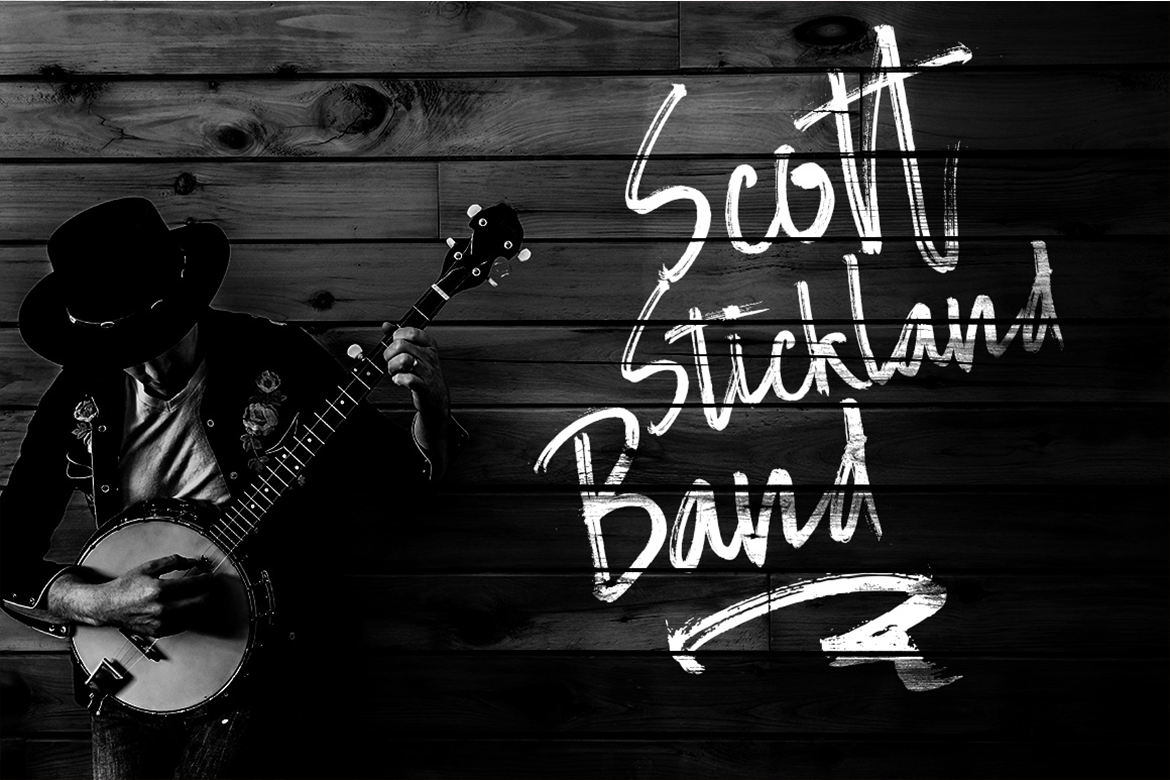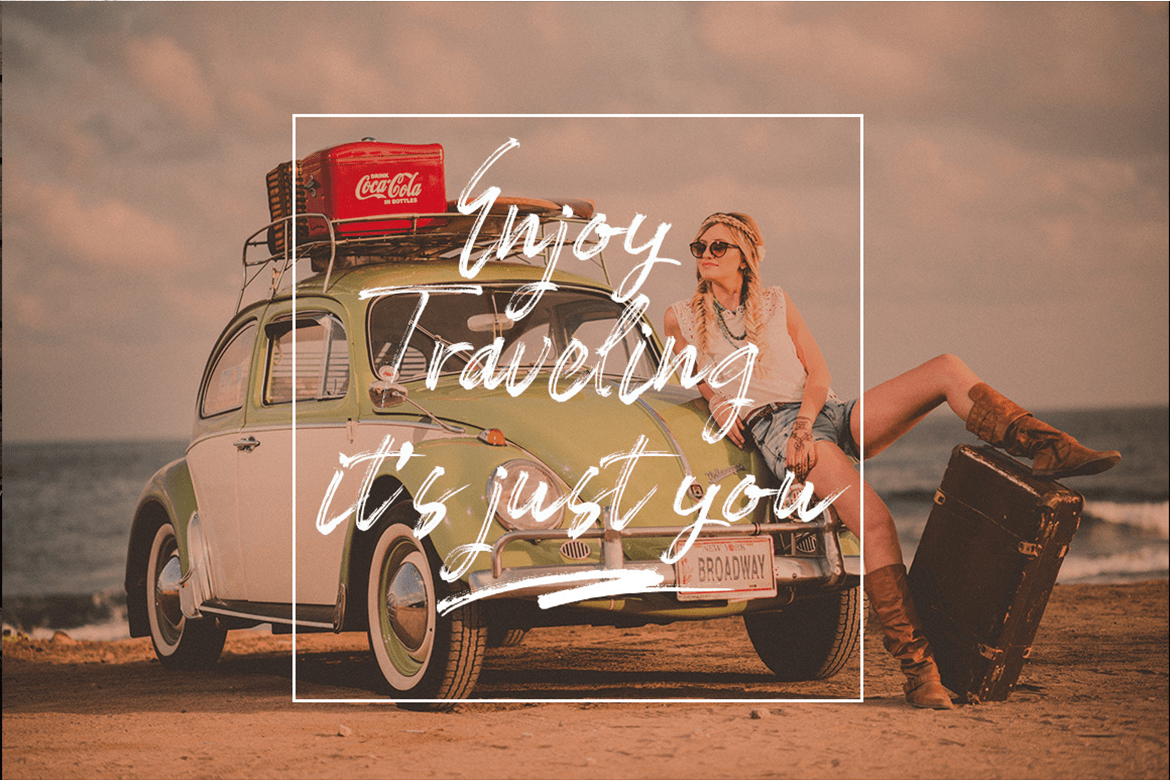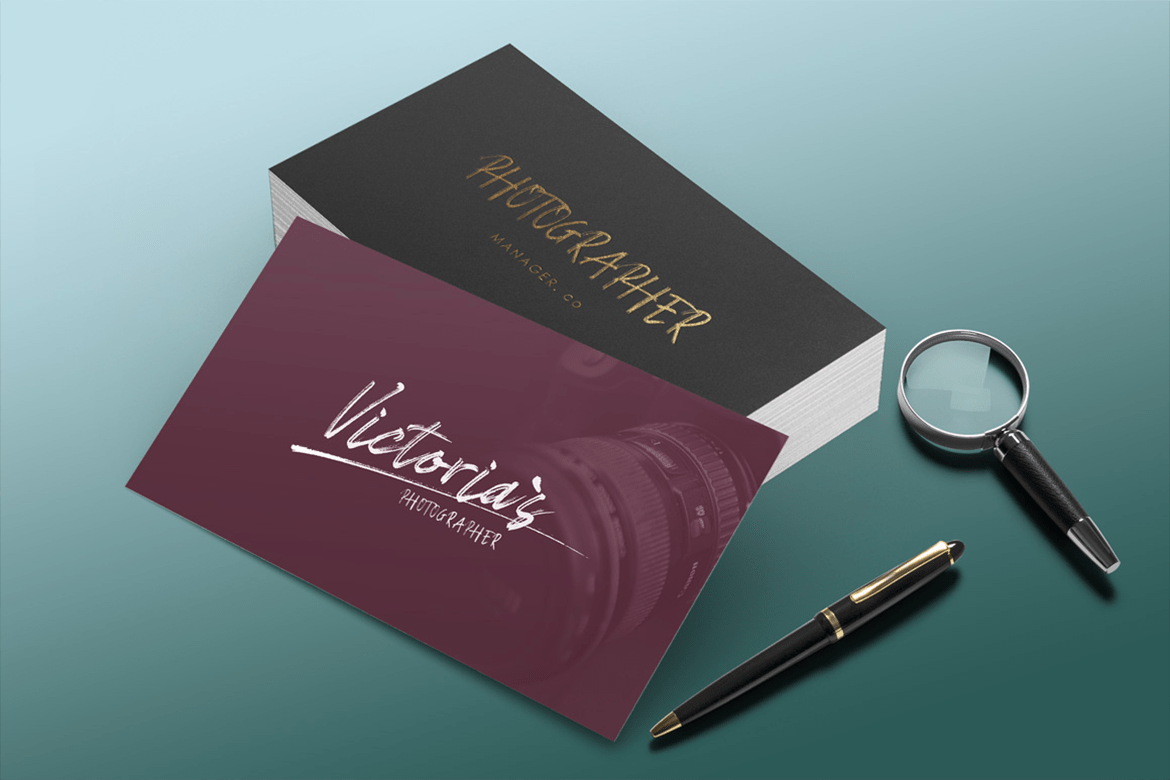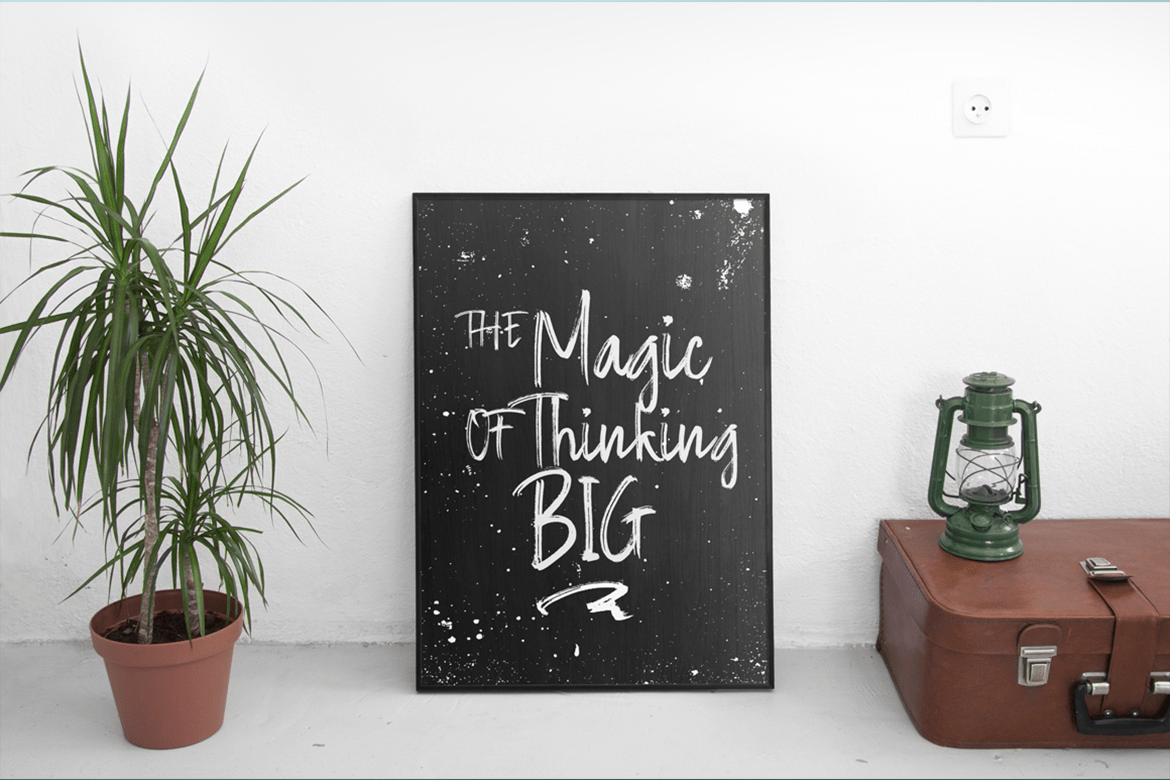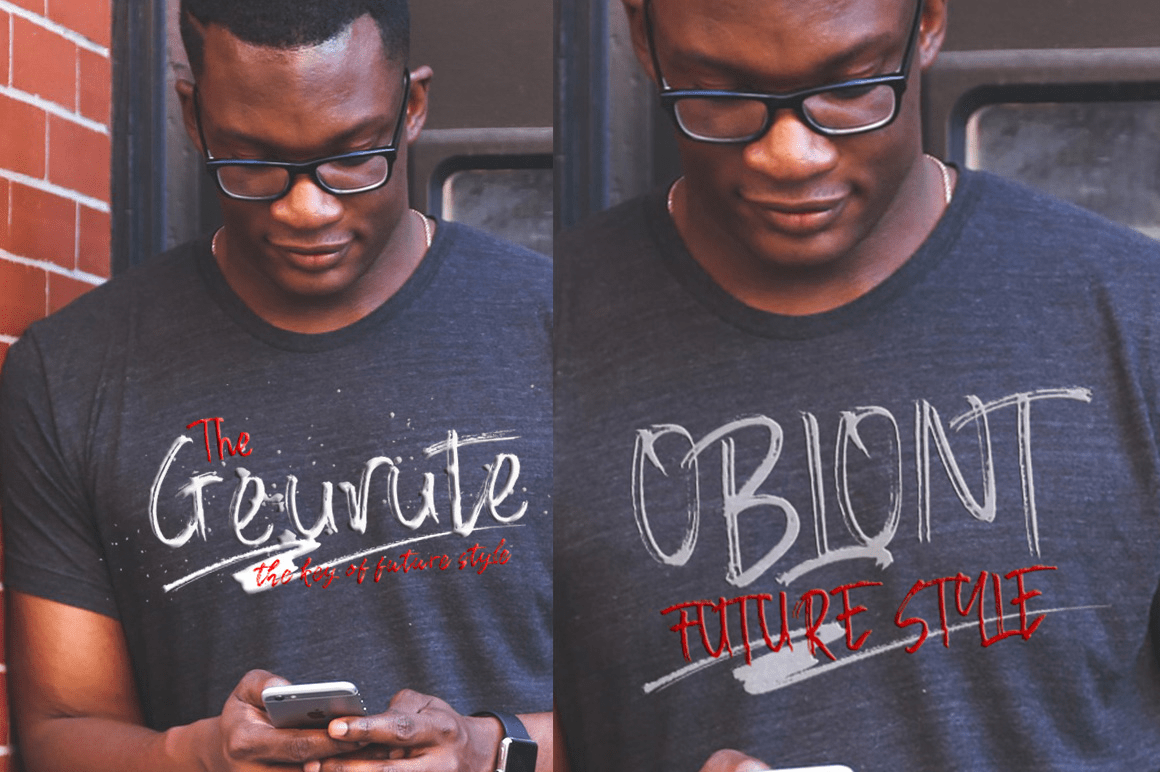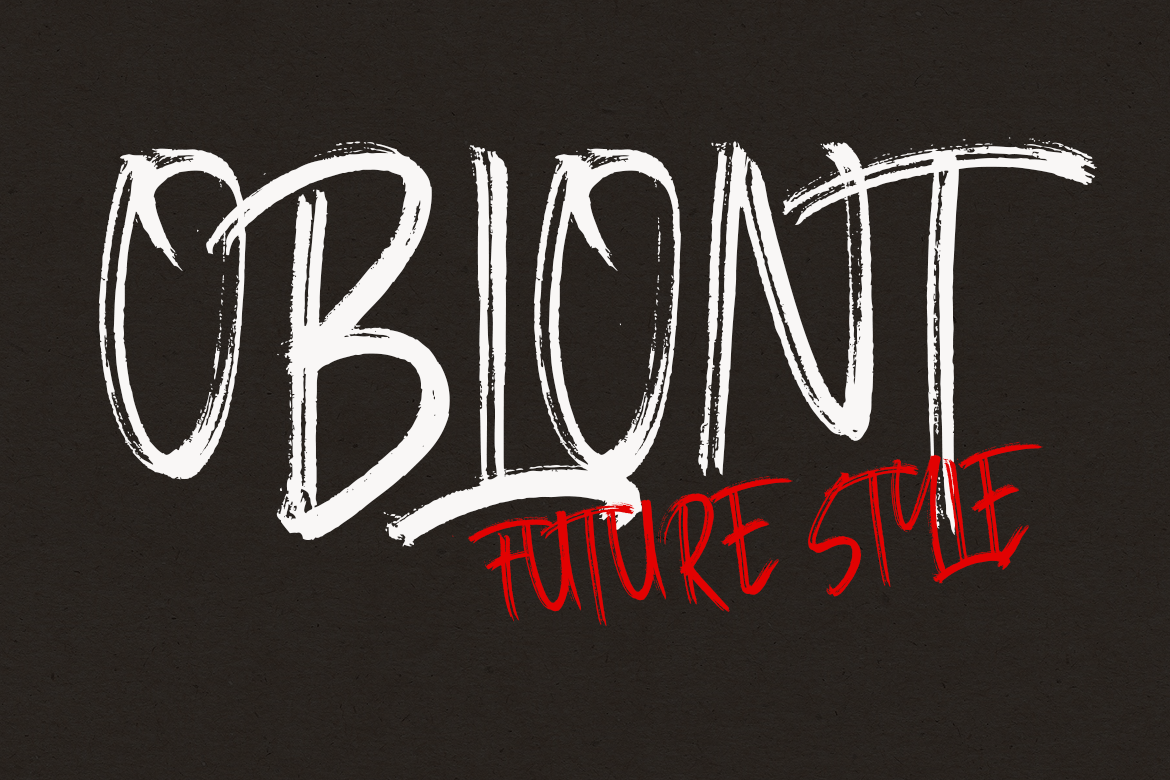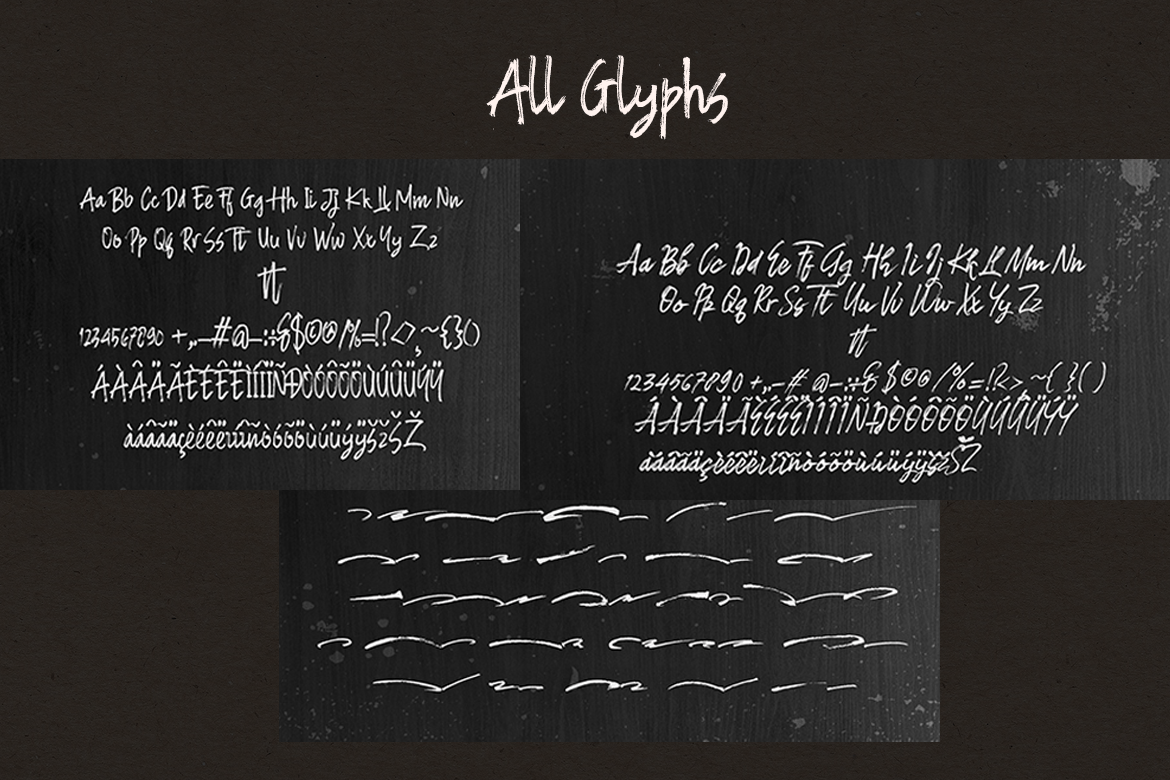
Expant
Expant is an original handwritten font designed to capture the natural look and movement of real handwriting. Created by hand with smooth, curved brush strokes and carefully digitized, Expant has an organic and authentic character that gives designs a personal, handcrafted feel.
Perfect for logos, branding, packaging, invitations, social media graphics, and other creative projects, Expant adds a relaxed and naturally handwritten touch to your designs.